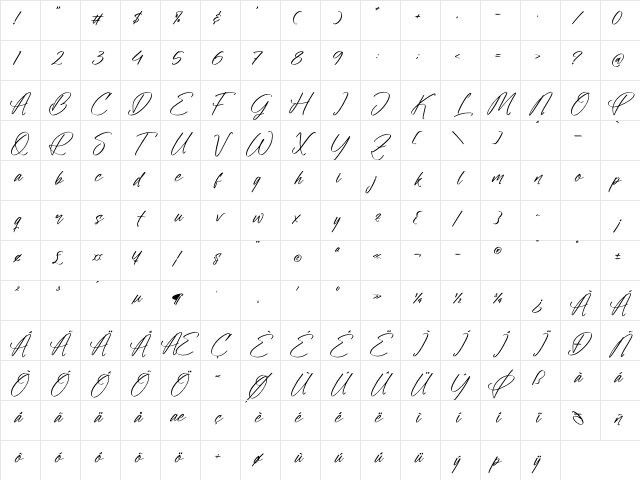
Pamello Glenstar Regular
Foundry: Glorytype
Designer: Glorytype
Design Context for Pamello Glenstar
Pamello Glenstar is a composed and adaptable typeface that performs quietly and consistently across a wide range of design contexts.